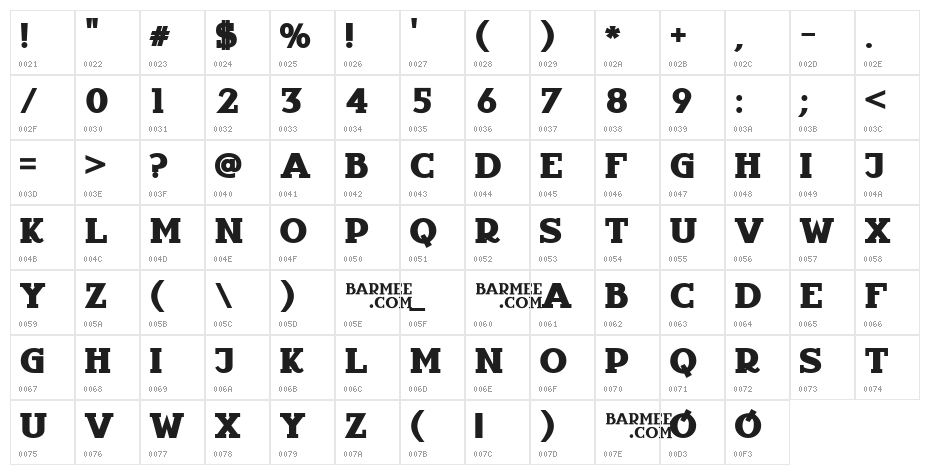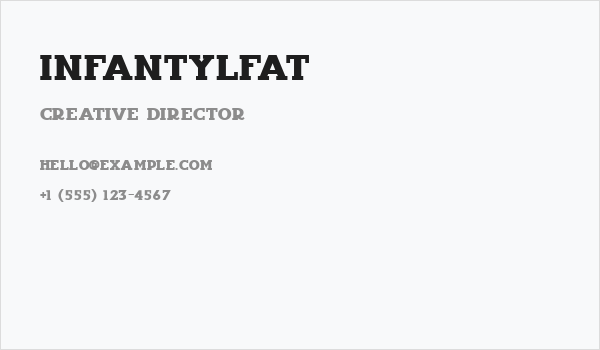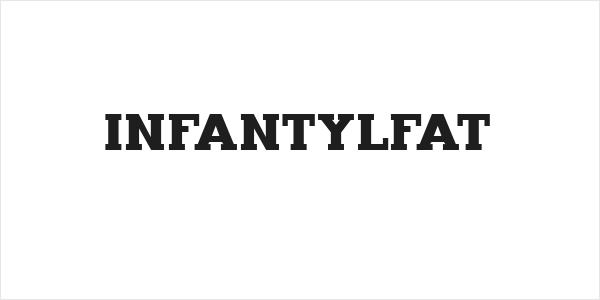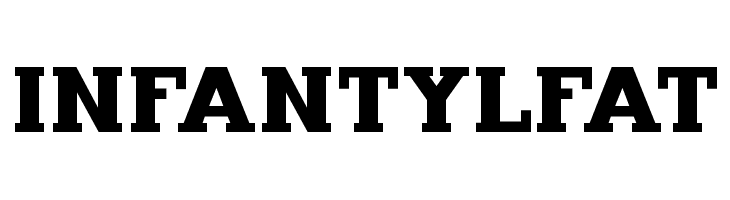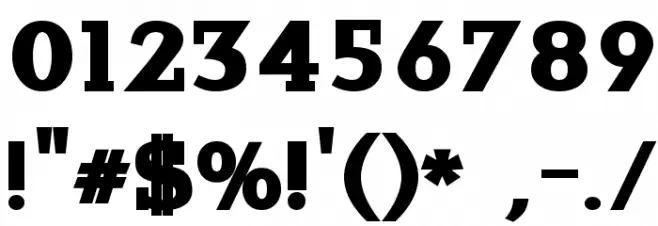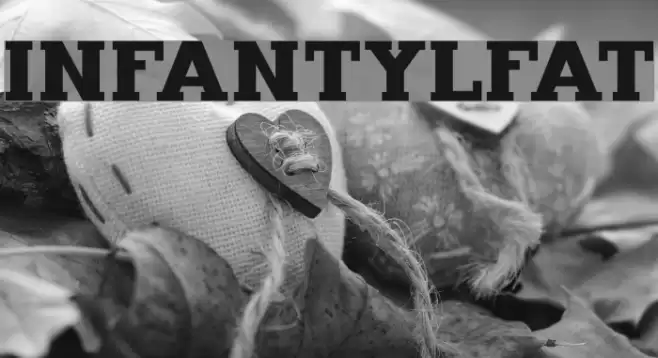
InfantylFat Font
InfantylFat Description
This font exhibits a bold and robust style, characterized by thick, heavy strokes that convey a sense of strength and impact. The uppercase letters are particularly prominent, with a strong presence that makes them ideal for attention-grabbing headlines. The lowercase letters maintain the same boldness, ensuring consistency across different text sizes. The numerals are equally bold, providing clear readability. Special characters are designed with the same heavy strokes, ensuring they stand out. The overall design is straightforward yet powerful, making it suitable for a variety of applications where a strong visual impact is desired.
| Proposed Projects | This font is perfect for branding projects, poster designs, and any application requiring a strong visual presence. |